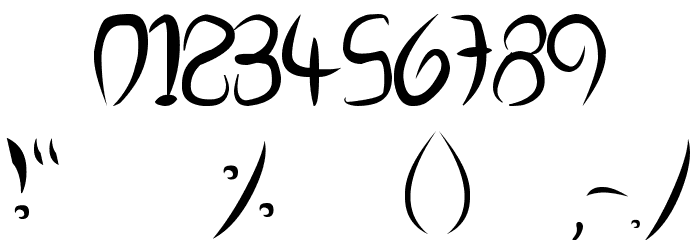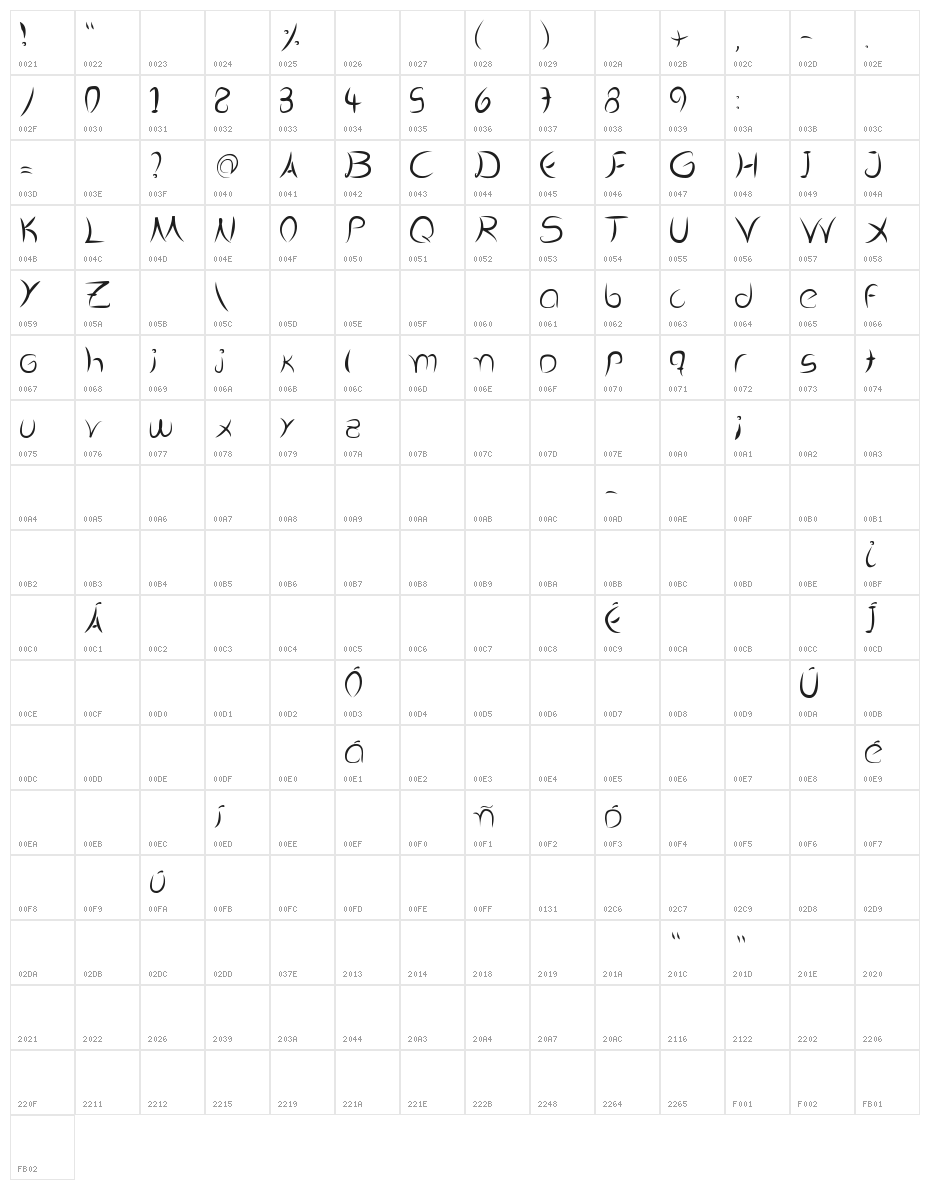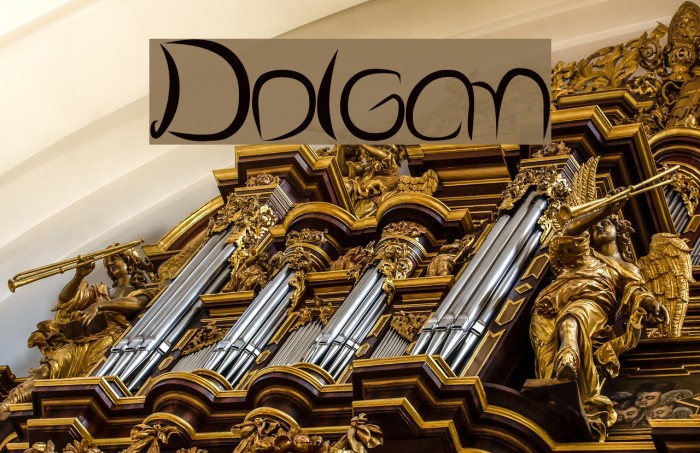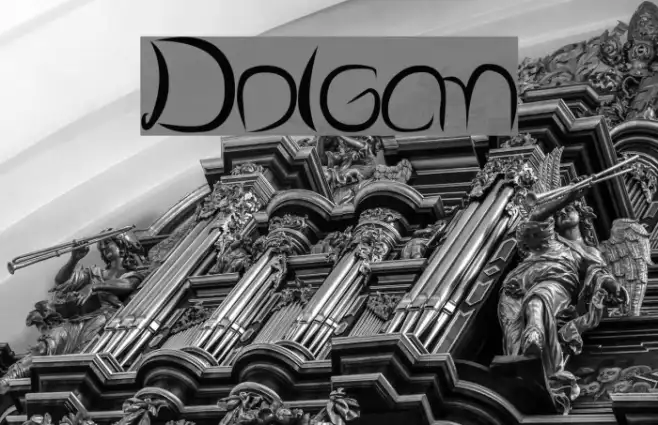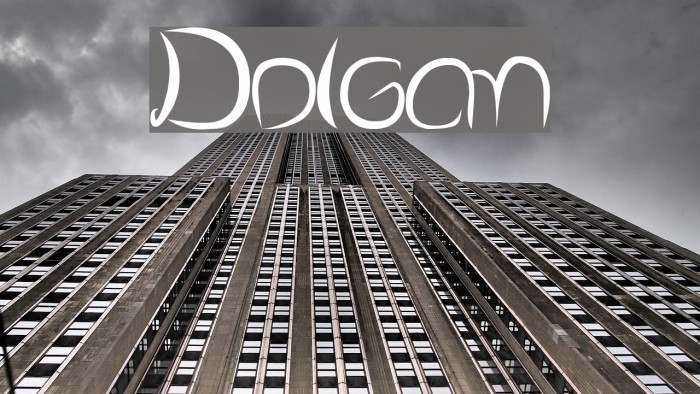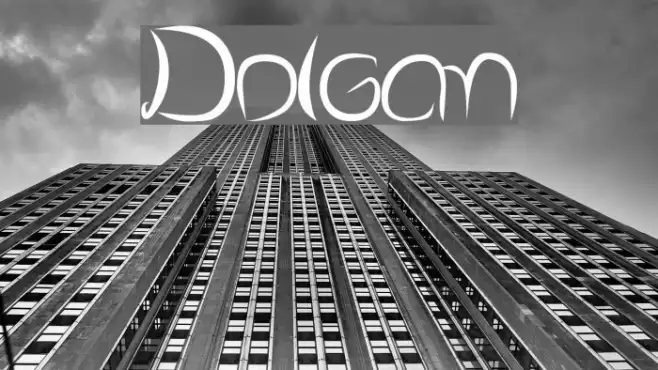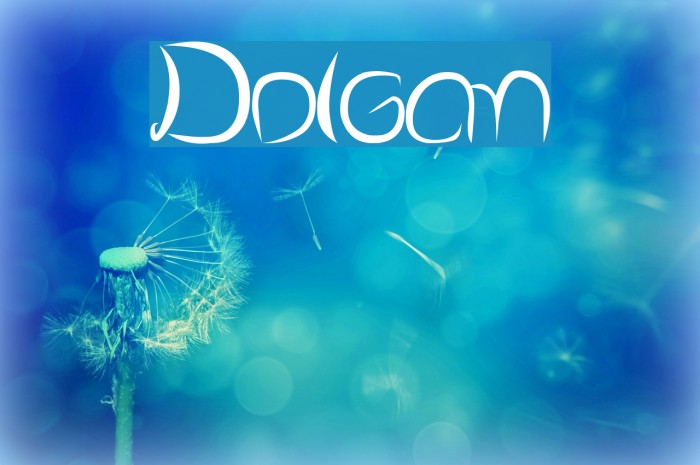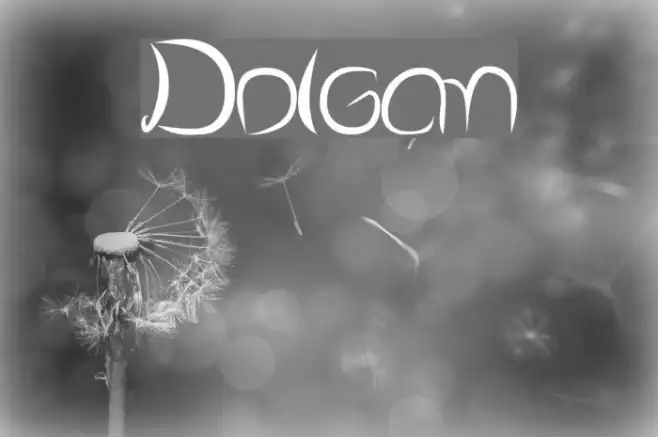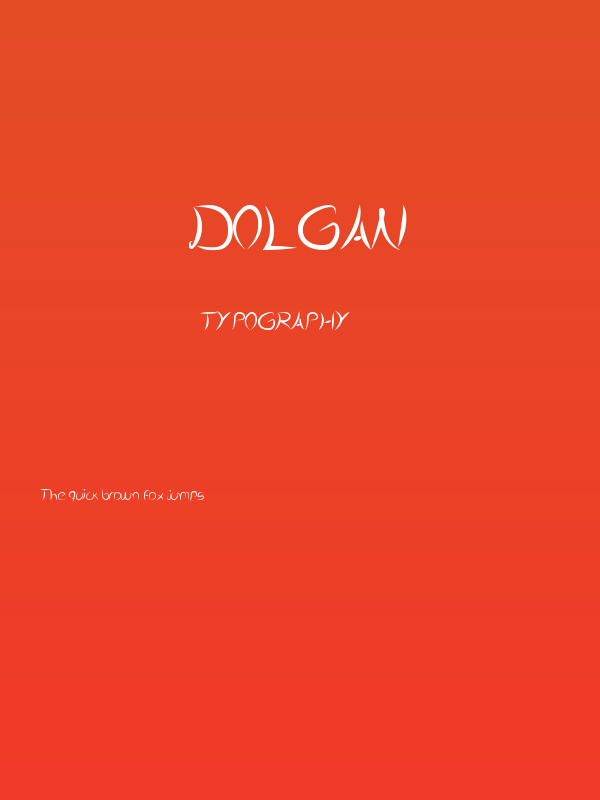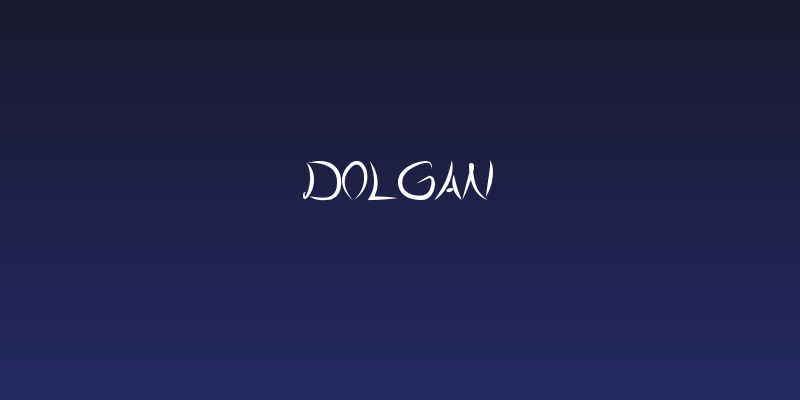
Dolgan Font
Dolgan Description
This font features a unique and artistic design with sharp, angular edges and flowing curves, creating a dynamic and energetic appearance. The uppercase letters are bold and striking, with a sense of movement and flair. The lowercase letters maintain the same style, offering a cohesive look throughout. Numbers and special characters are designed to match the overall aesthetic, with distinctive shapes and forms. The font's style is reminiscent of calligraphy, yet it maintains a modern edge, making it suitable for a variety of creative applications.